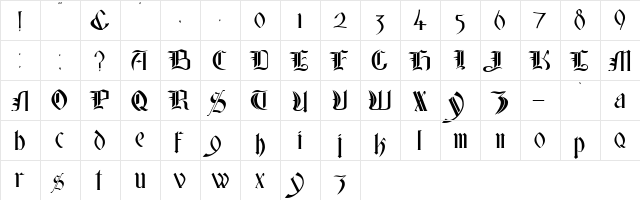
Glastonbury Wide Regular
Design Context for Glastonbury Wide Typeface
Glastonbury Wide is a composed and adaptable typeface that performs quietly and consistently across a wide range of design contexts.